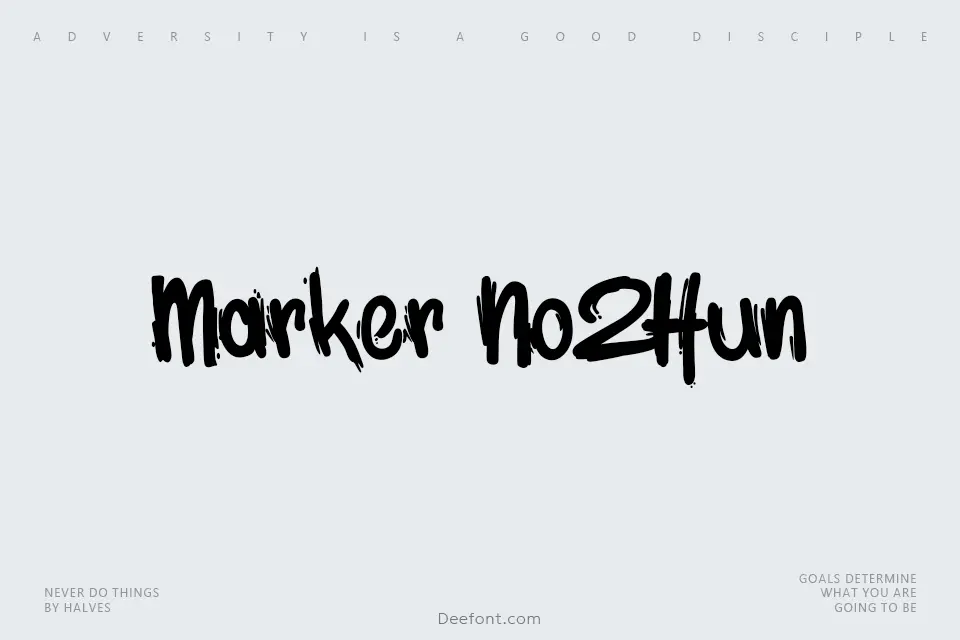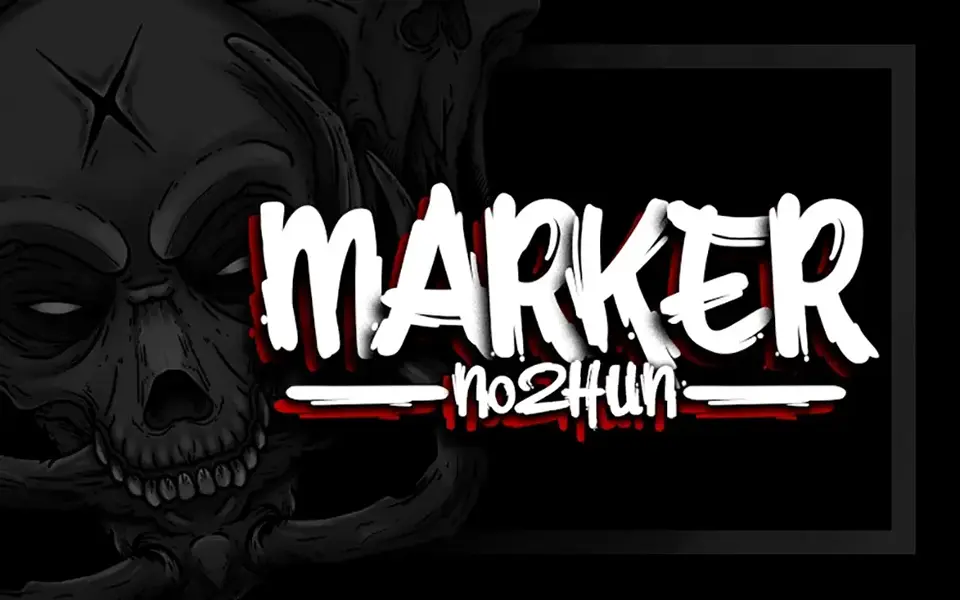
Marker No2Hun Font
Marker No2Hun is a distinctive script font designed with a bold, graffiti-inspired aesthetic. Created in 2019, this versatile typeface features 101 glyphs with partial accent support. It combines artistic flair with practical usability, making it ideal for creative projects, graphic design, and typography work that demands visual impact and personality. The font showcases a marker-like texture with expressive letterforms that capture attention while maintaining readability for contemporary designs.